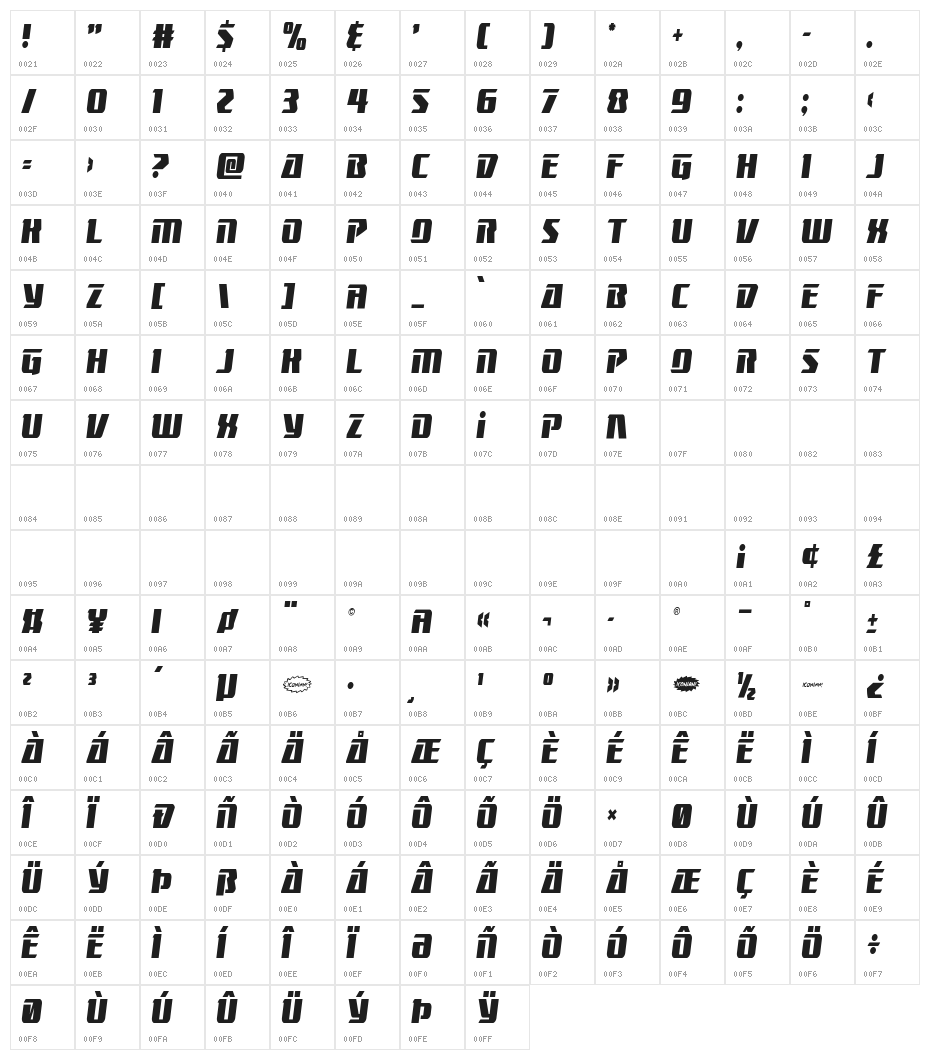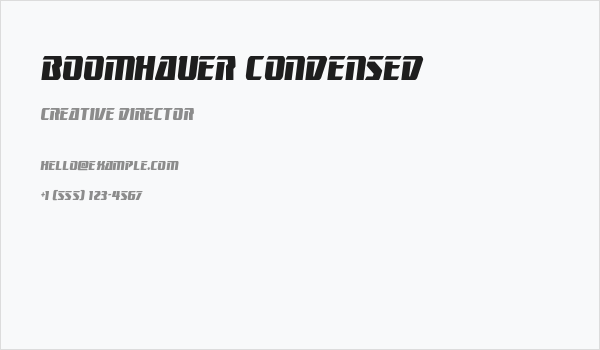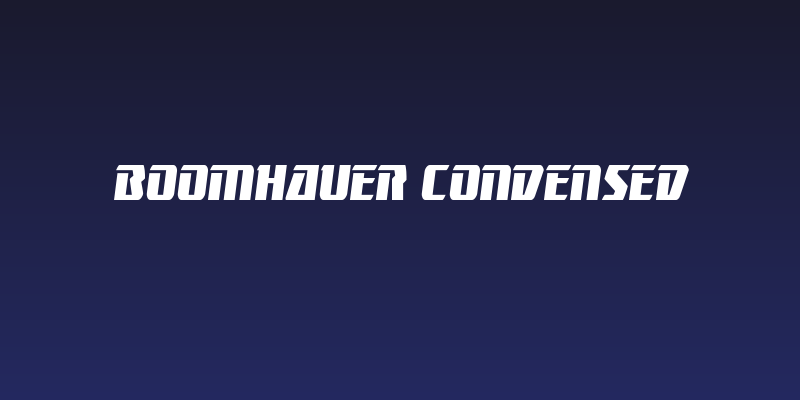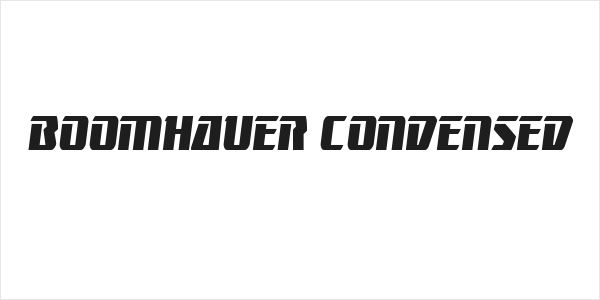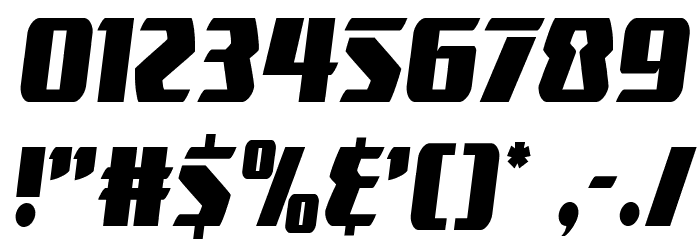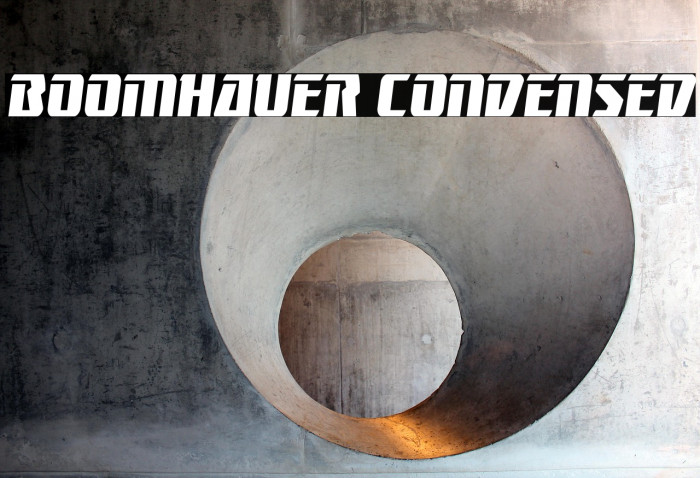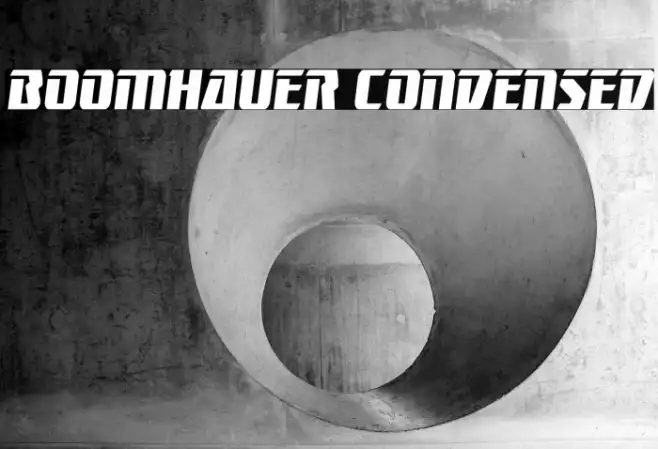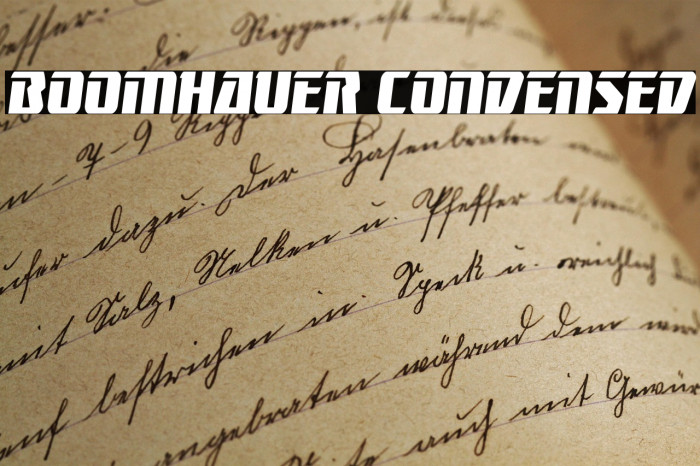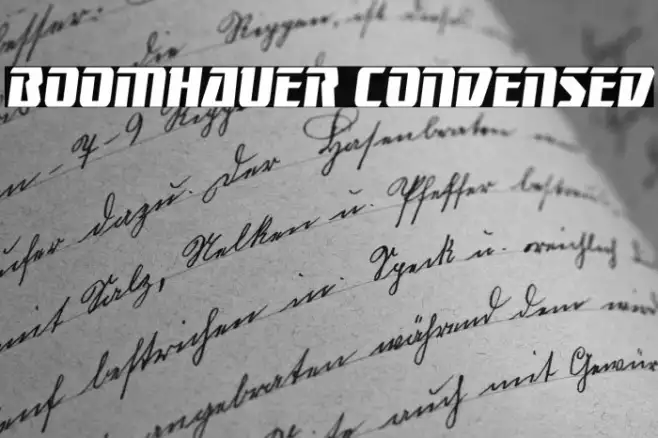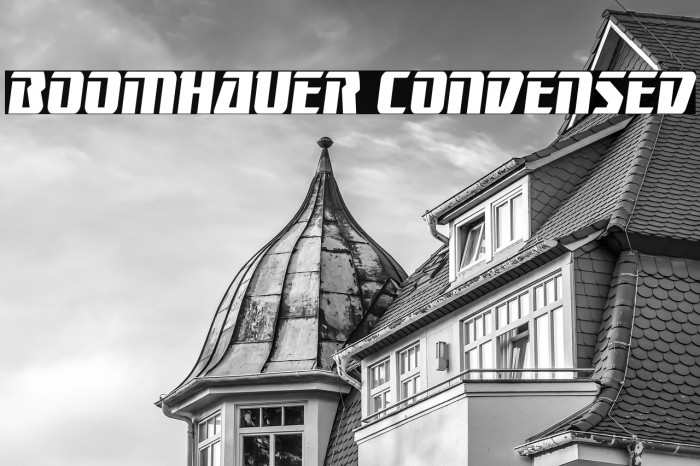
Boomhauer Condensed Font
Boomhauer Condensed Description
This font features a bold and dynamic design with a condensed structure, making it ideal for impactful headlines and attention-grabbing text. The characters are sharply angled with a futuristic and sporty aesthetic, characterized by thick strokes and a strong presence. The uppercase and lowercase letters maintain a consistent style, while the numerals and special characters complement the overall design. The font's condensed nature allows for efficient use of space, making it suitable for various design applications where space is limited but impact is necessary.
| Proposed Projects | Ideal for sports branding, dynamic posters, video game titles, and futuristic design themes. |